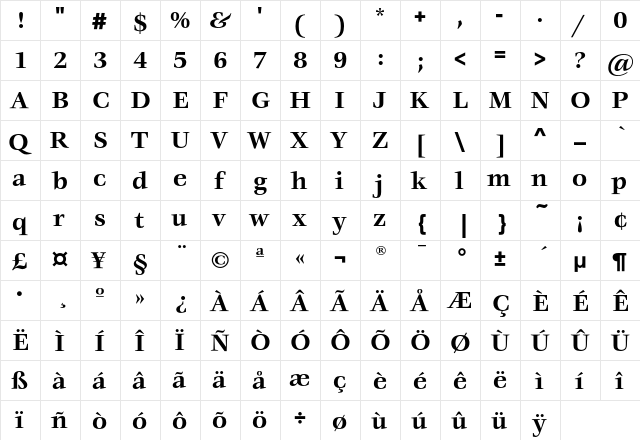
VeljovicEF Bold
Design Context for VeljovicEF Typeface
VeljovicEF is a composed and adaptable typeface that performs quietly and consistently across a wide range of design contexts. Its bold stroke weight gives it real presence on the page.